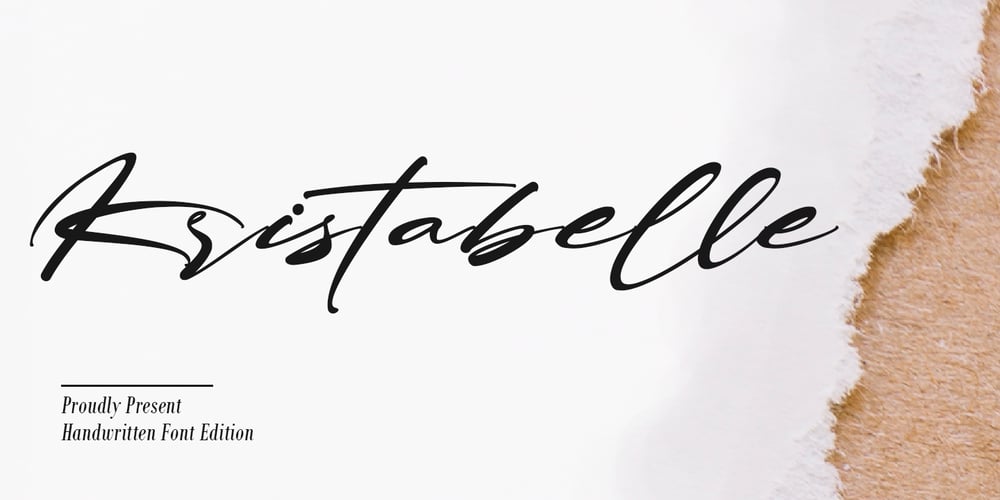
Kristabelle
Kristabelle font
Kristabelle Font Family was designed by Thomas Aradea and published by Letterara. Kristabelle contains 1 styles and family package options. Kristabelle is a handwritten script with a modern and sensible style. This font is ideal for weddings and other romantic invitations. Kristabelle works both on Mac & PC and is easy to install. It contains ligatures and multi-lingual support (ä ö ü Ä Ö Ü ß ¿ ¡). To access the alternate glyphs, you need a program that supports OpenType features such as Adobe Illustrator CS, Adobe Photoshop CC, Adobe Indesign, and CorelDraw. More information about how to access alternate glyphs, check out this link (http://goo.gl/ZT7PqK) To stay up to date of my latest fonts, follow me and let be friends because there will be many promos.